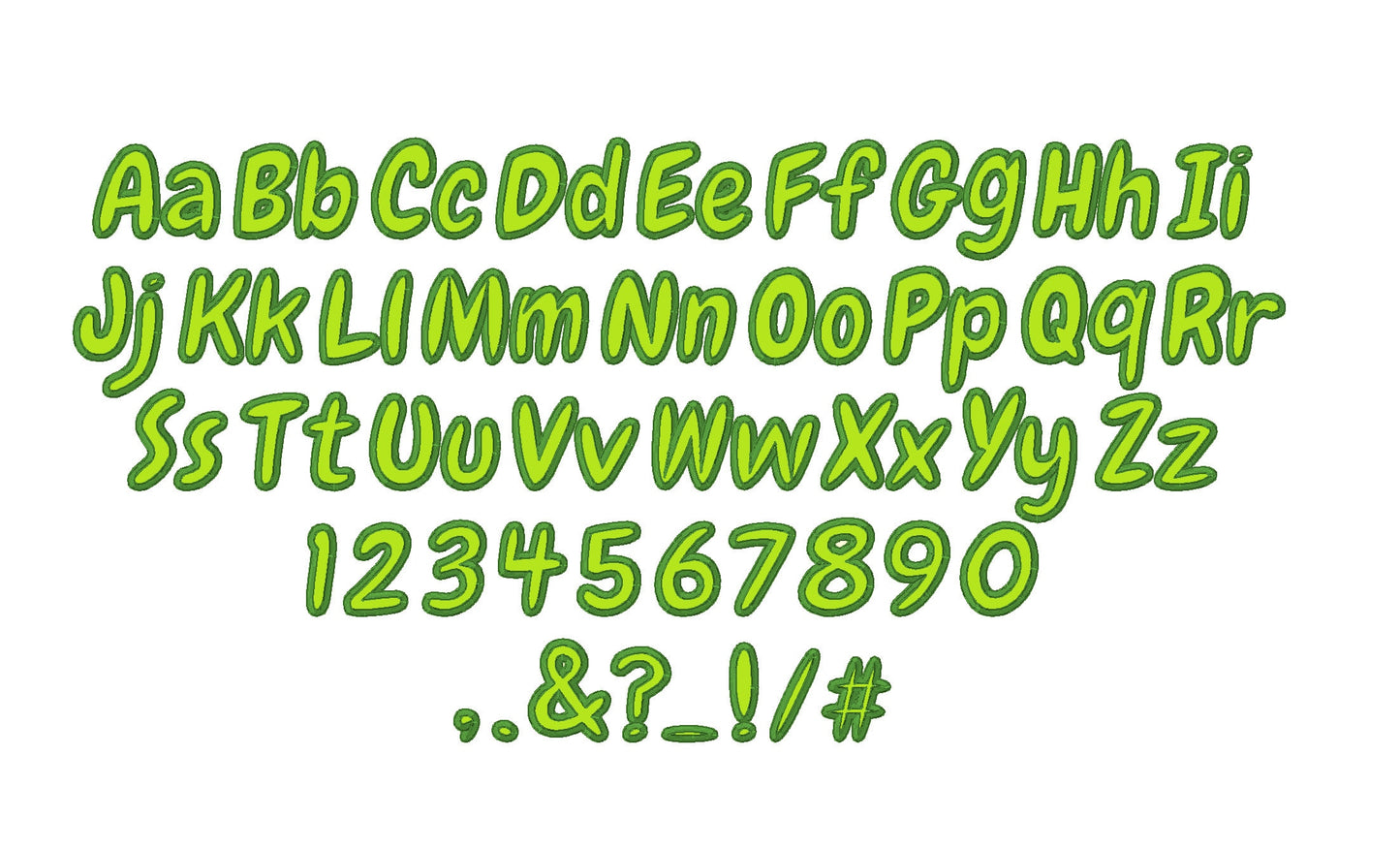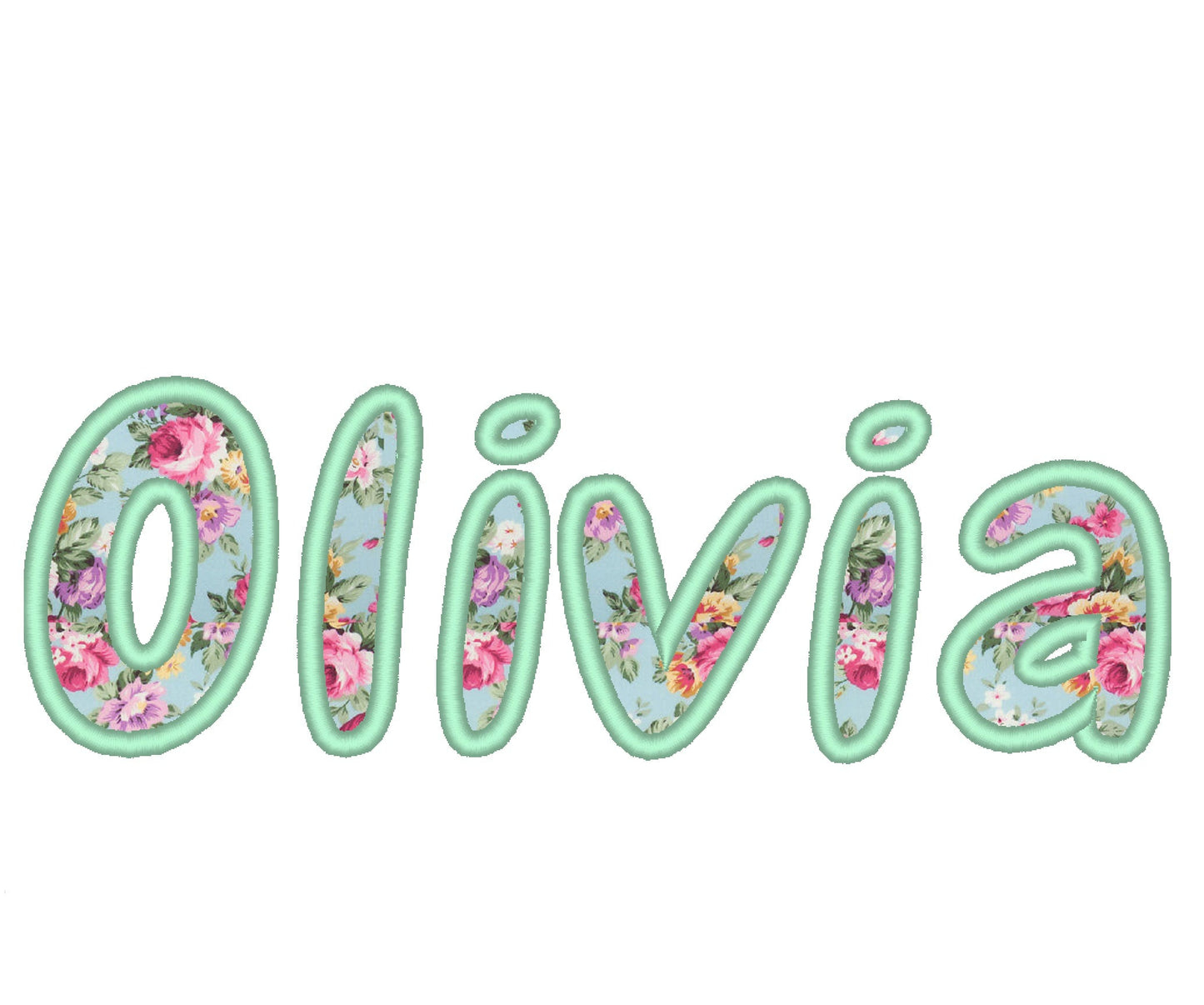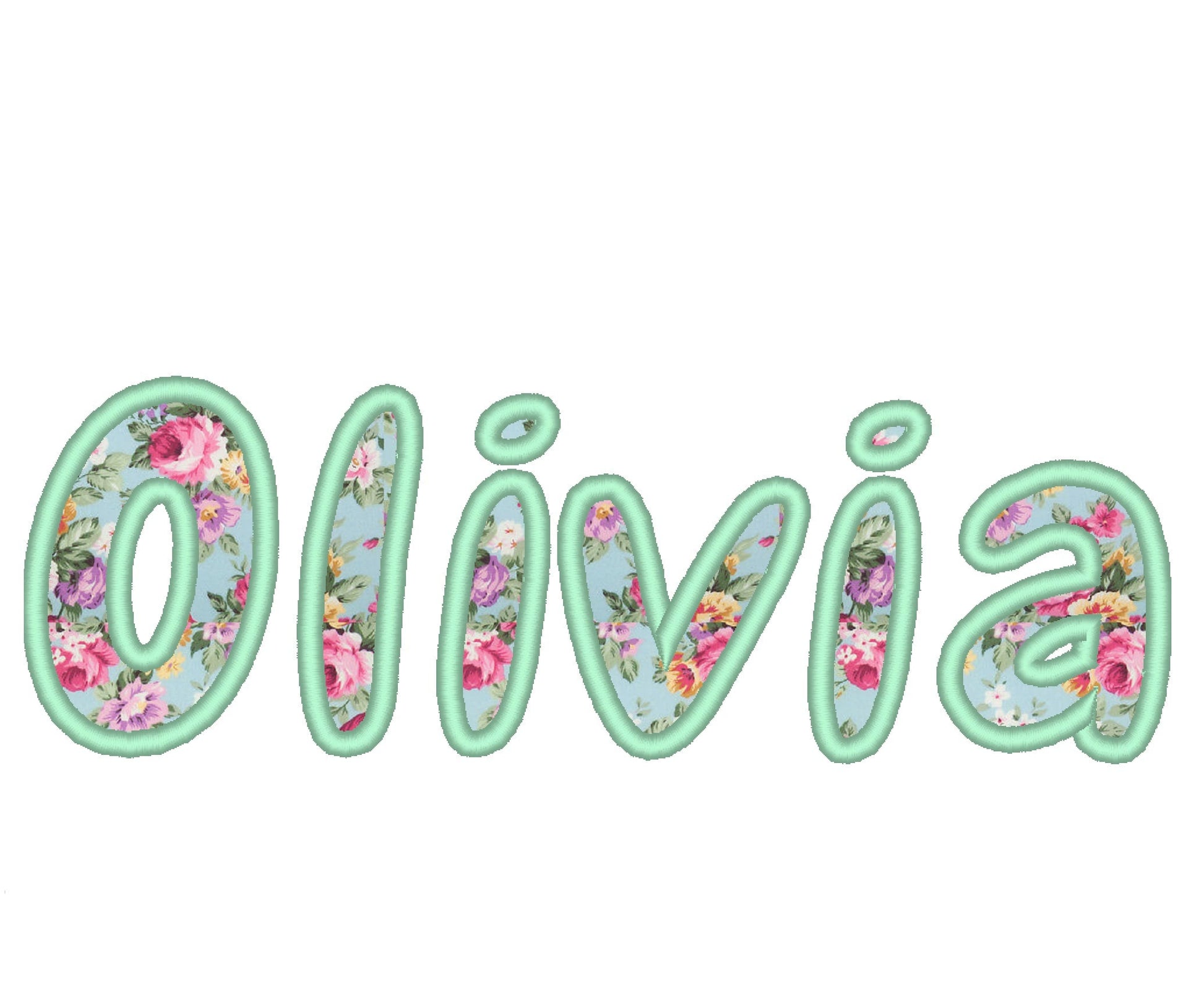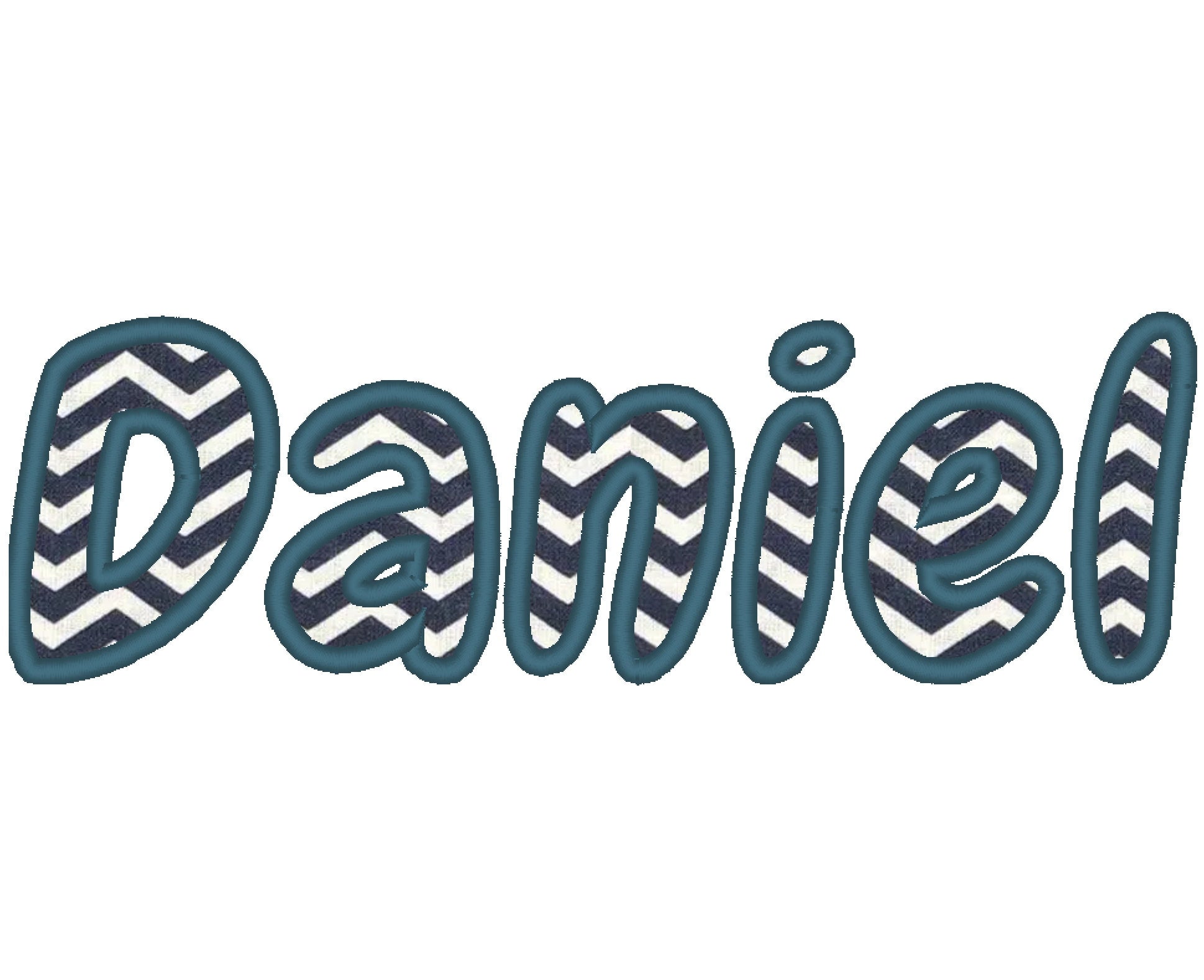
Kids Monogram Applique Font
Uppercase and lowercase letters, numbers 0 to 9 and punctuation, in seven sizes: 2.2, 2.6, 3.3, 3.7, 4.1, 4.7 and 5.3 inches.
- Kids monogram applique font
- Uppercase and lowercase letters, numbers 0-9, punctuation
- 7 sizes, 2.2 to 5.3 in